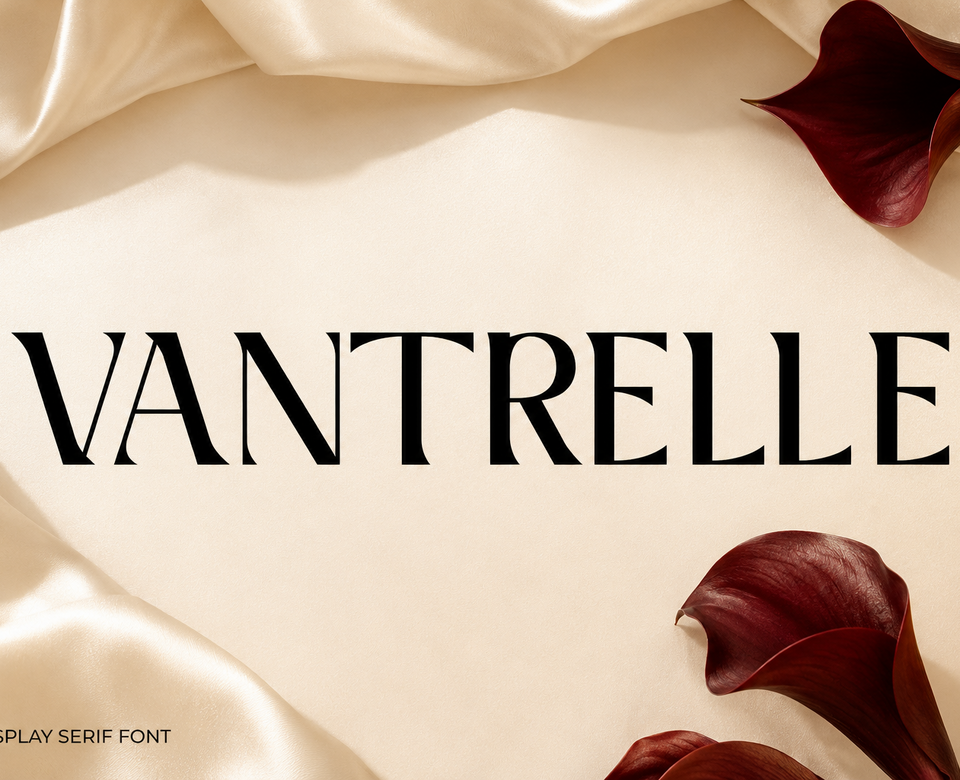
VANTRELLE - Luxury Display Serif Font
VANTRELLE is a bold, dramatic display serif font that walks the line between classic elegance and modern luxury. It carries a slightly mysterious character - confident, refined, and impossible to ignore. This is a luxury serif font built for brands that want to feel exclusive before they say a single word. Generic luxury fonts all look the same; VANTRELLE does not.
This elegant serif font ships as a Font Duo in two styles - Regular and Italic - giving you a complete luxury branding toolkit in one download. Pair the upright Regular for confident statements, headlines, and logo lockups, and switch to the Italic for movement and emphasis in editorial pull quotes and magazine layouts. Each style carries 279 glyphs covering uppercase, lowercase, numerals, punctuation, and accented characters for multi-language projects.
- Two full styles, Regular + Italic - an upright for statements and a slanted voice for motion and drama.
- OpenType GSUB/GPOS with stylistic alternates (ss01) - refined spacing and alternate letterforms that keep the face balanced from logo lockups to full editorial spreads.
Where it shines: luxury branding and brand identities, editorial design and magazine covers, fashion lookbooks, cosmetic and beauty packaging, boutique hotel identities, high-end wedding invitations, logo design, posters, and hero typography at large display sizes. It is a premium serif font made for projects where aesthetics decide everything.